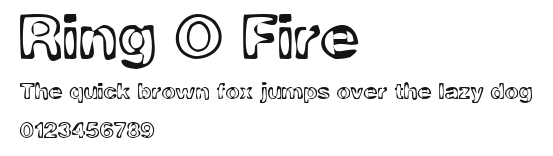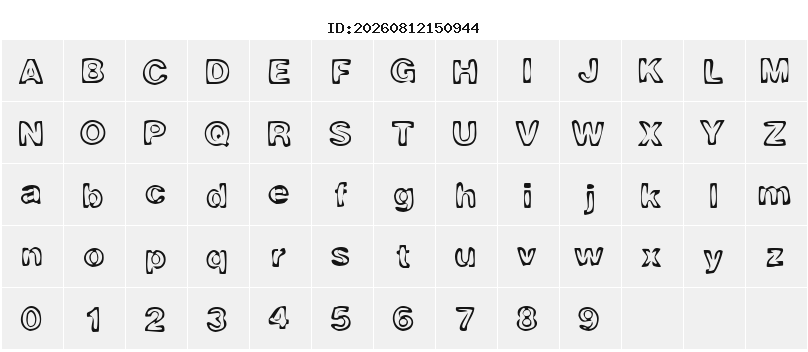
• Font Name: Ring O Fire
• Full Font Name: Ring O Fire
Ring O Fire.ttf is a modern, elegant sans-serif font designed for ultimate readability and visual harmony. Perfect for branding, headlines, web design, and print materials.